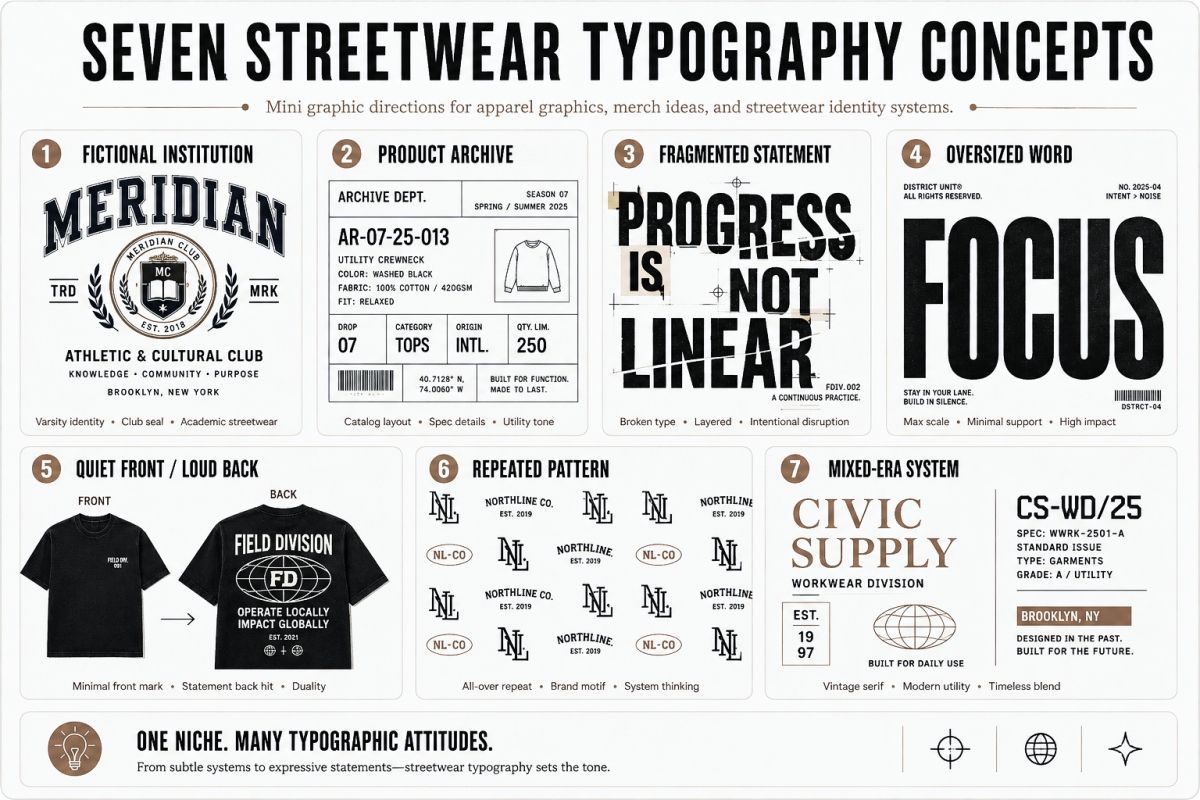
Fonts for Streetwear Designs: Bold Type Ideas for Apparel Graphics
Choosing fonts for streetwear designs looks simple at first.
Find something bold. Add a distressed texture. Place it across the back of a black T-shirt.
Done.
But that formula can quickly make your design feel generic.
Strong streetwear typography is not defined by one font style. It comes from the relationship between the message, garment, placement, printing method, and audience.
A narrow condensed font can feel aggressive on an oversized back print. The same font may look weak on a small embroidered cap.
A decorative blackletter font may create instant attitude. Yet it can also overpower the message when every line uses it.
The goal is not to find the loudest font.
The goal is to build a typographic system that feels intentional, wearable, and recognizable.
In this guide, I will show you how to choose fonts for streetwear apparel, combine different type styles, plan your hierarchy, and test your designs before production.
Streetwear Typography Is More Than an “Urban” Font
Streetwear is often associated with graffiti, grunge, blackletter, athletic lettering, and oversized sans serifs.
These directions are useful.
They are not rules.
Today, streetwear graphics can also feel minimal, editorial, technical, nostalgic, futuristic, or quietly luxurious. A plain grotesk font can look more authentic than an aggressively distressed typeface when the concept supports it.
Before browsing fonts, ask three practical questions.
What is the message trying to do?
Some messages need to be read immediately.
A bold slogan such as “MOVE DIFFERENT” may need a direct, compressed sans serif. A fictional organization name may work better in an institutional serif or collegiate slab.
Other messages are not meant to communicate everything at once. They create curiosity through codes, dates, coordinates, serial numbers, or fragmented phrases.
The function of the message should influence the font.
From what distance will it be seen?
A back graphic may be viewed from several meters away.
A woven label is examined from a few centimeters away.
Those two applications need very different letterforms.
Fonts with strong silhouettes, open counters, and clear spacing usually survive distance better. Small applications need simpler shapes and fewer decorative details.
How will the artwork be produced?
A detailed digital mockup does not guarantee a successful physical product.
Screen printing, direct-to-garment printing, transfers, embroidery, puff ink, foil, and woven labels reproduce typography differently.
The production method should shape your font choice before the final artwork is approved.
Nine Font Directions for Streetwear Designs
There is no single “streetwear font.”
Instead, think in terms of visual directions. Each direction creates a different attitude and works best in particular applications.
1. Heavy Grotesk Sans Serif
A heavy grotesk is one of the most flexible choices for streetwear graphics.
It feels direct, modern, and confident. It can carry a short slogan without needing many additional effects.
Use it for:
• Oversized back statements
• Minimal front graphics
• Brand wordmarks
• Lookbook covers
• Promotional posters
A heavy grotesk becomes more distinctive when you adjust its scale, spacing, crop, or placement.
Try setting the type extremely large and allowing parts of the letters to leave the print area. You can also use tight tracking for a dense visual block.
Avoid adding distress automatically. Clean type can feel more powerful when the garment, photography, and message already provide enough character.
2. Condensed Display Sans Serif
Condensed fonts create height without taking up too much horizontal space.
They work well for long brand names, vertical sleeve graphics, stacked statements, and narrow compositions.
Their compressed proportions can feel athletic, editorial, industrial, or urgent.
Use them when you need to:
• Fit several words into a limited area
• Build a tall vertical composition
• Create dramatic stacked typography
• Combine a headline with technical information
Be careful with extremely narrow letters.
When counters become too small, the design may lose clarity after printing or when viewed from a distance.
3. Expanded or Wide Sans Serif
Wide type creates a completely different rhythm.
It feels stable, futuristic, cinematic, and sometimes intentionally slow. It can give a simple wordmark a strong visual presence without using texture or illustration.